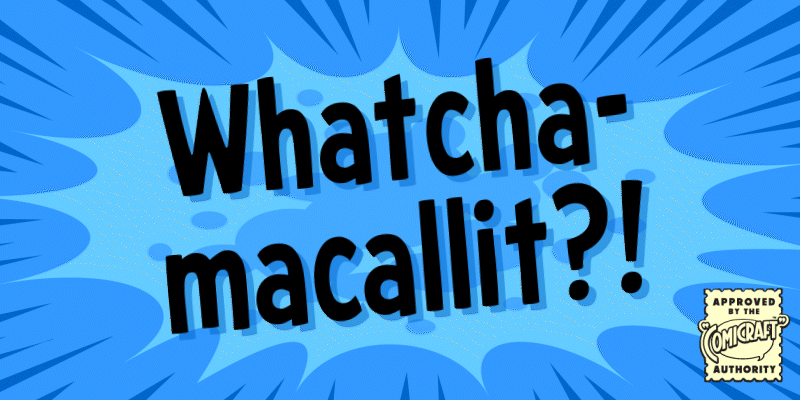
CC Whatchamacallit Variable Font Free Download is a quirky, playful sans-serif typeface that stands out with its distinctive, rounded shapes and unique character design. Perfect for creative projects, branding, headlines, and any design that needs to make a fun and memorable statement, CC Whatchamacallit brings an energetic personality to your typography.
The CC Whatchamacallit Variable Font offers flexibility with its variable weights, giving you the freedom to adjust the font to suit your specific needs. Whether you're creating bold headlines, eye-catching logos, or informal design elements, this font’s lively and whimsical style ensures it stands out in any application.